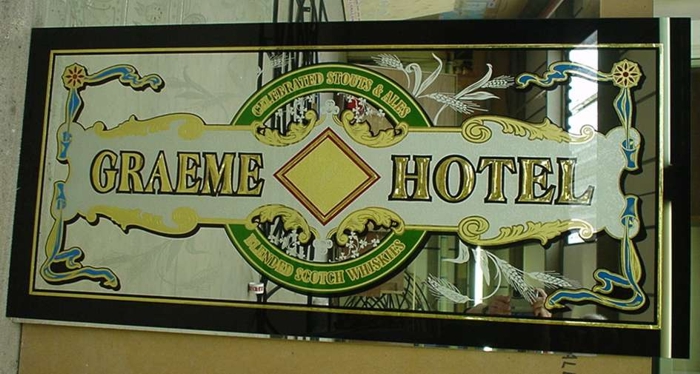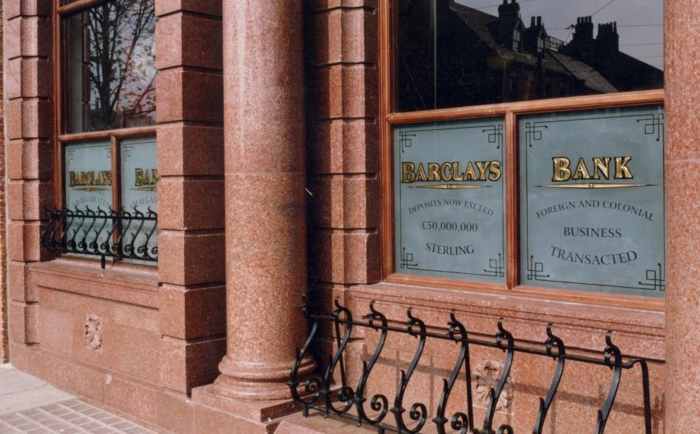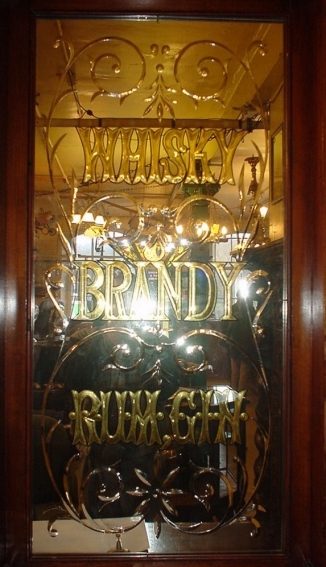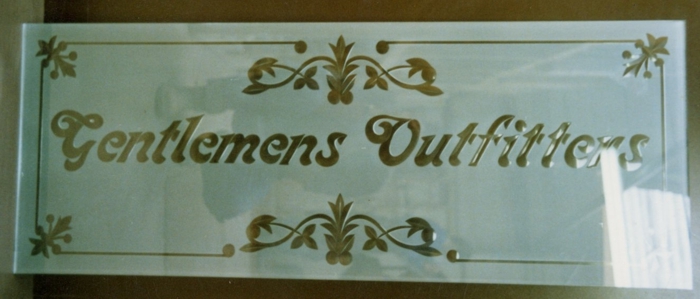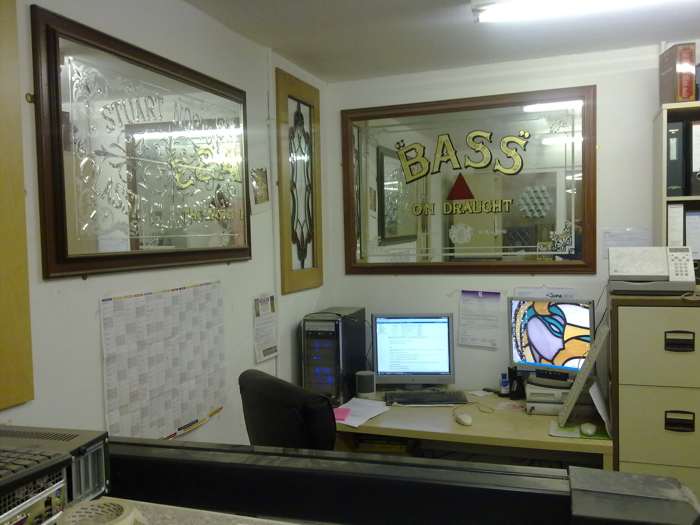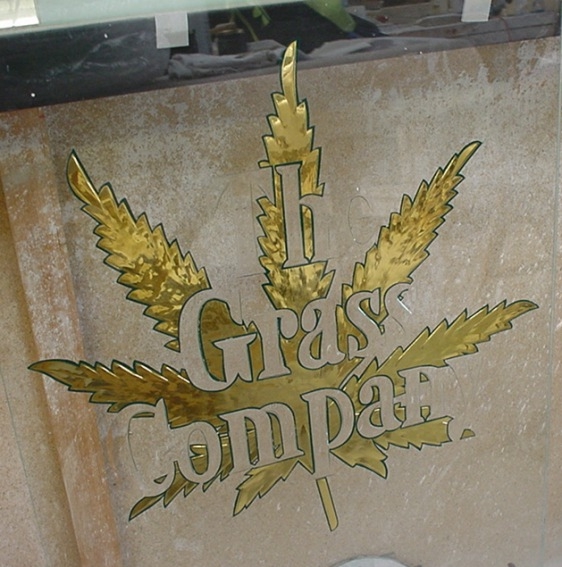
Found old photo of mirror I did a few years back. Painted gold leaf, acid etched and brilliant cutting. Brilliant cut lettering looks good gold leafed and with black out line.
Stuart,
I like those brilliant cut letters in embossed panels. I have wondered if those various wheel cut letters were invented by each cutter as their own idea and style, or learned in an apprenticeship as standardized brilliant cut fonts.
I would like to know if the is a book of these various letter cuts, or possibly an old original brochure from a shop that customers could choose a font style from.
How many fonts have other people noticed?
I know that I have looked very closely at some I have seen, and noticed some pretty clever "scarfs" and use of intersecting angles to create fancy serifs.
Can you add anything about the letter cuts in these glass panels?
Hi Stuart- thats a really nice piece.
Did you do the cut glass and gilded Barclays Bank windows at the Beamish Museum, in the north east?-
.Just something very familiar about those letters!
Lovely panel Stuart, I also like the cut lettering with this style. You have a piece with your name on it hanging in your workshop,any chance you could post an image of that one as it shows a different style again.
yes Wayne, I did the windows in barclays bank.
Patrick, we brilliant cutters get stuck into one or two fonts. But there is no reason why you cannot have any font, just have to adapt it a bit. It’s all down to time. If you have allot off small curves it takes a while to cut and polish them. Three inch seems to be the smallest size to do, but have in the past done two inch in height but the cuts where small. Have also done 12 inch high letters on shop front. Scripts look good all nice curves etc. Nobody has done a font book of brilliant cut lettering, often thought of getting a type face program and doing some would make things a bit quicker in the drawing stage.Patrick Mackle wrote:Stuart,
- Just a bit different
- An original mirror there was four in antique back fitting copied them for a new back fitting in Berlin, I think.
Was it this one on the left. sorry not the best pictue
A one for erik. erik is this turf supplies office door next to your workshop
The Cannabis shop used to be mine, but since a year or two I do not grow pot anymore.
I maybe should try and focus on just one thing at a time, but passion runs wild for all the different techniques, as I am sure you can relate to. When I get to the point I have something to show, I will post PIX.
That is indeed brilliant cutting and Inga can tell you almost everything you want to know."